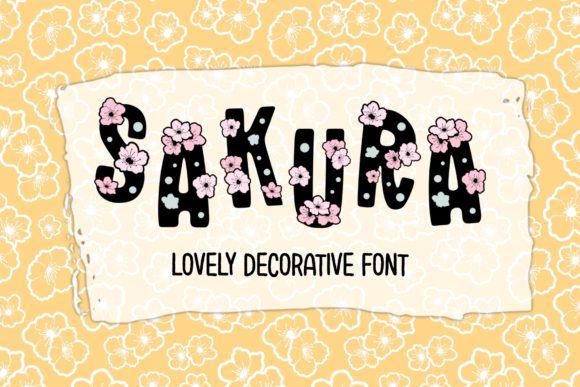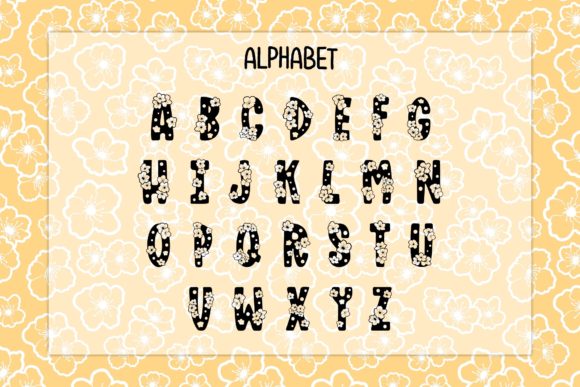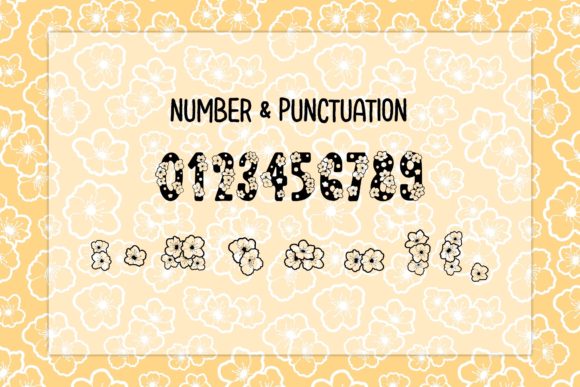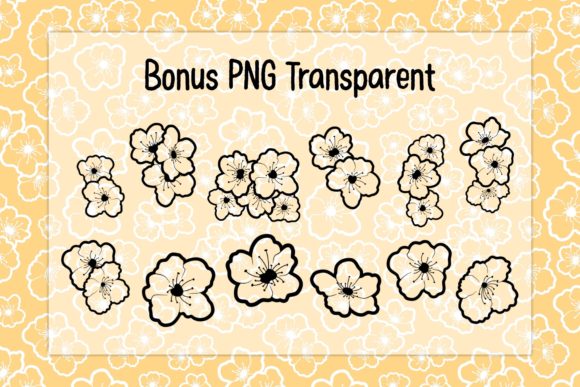
Sakura Font: A Cute Floral Decorative Font for DIY & Cricut Projects
About the Sakura Font
The wait is over! The incredible Sakura Font is now available for your design toolkit. Sakura is a lovely decorative font. This font is the perfect fit for all of your logos, branding, social media, crafty DIY projects, and much more!